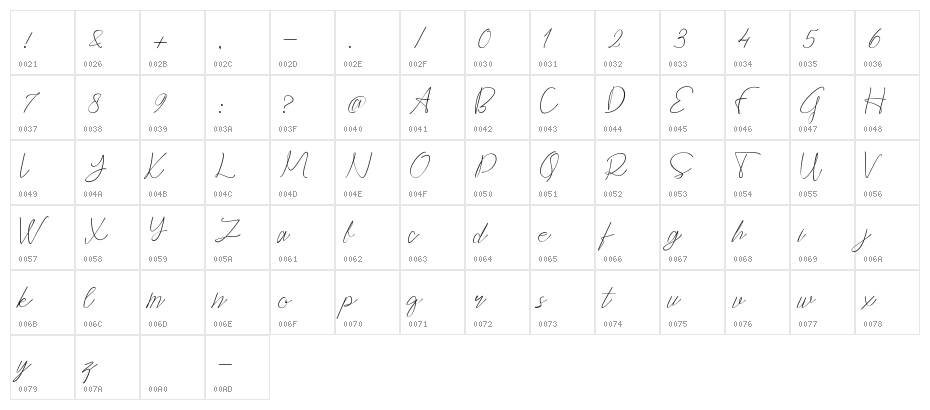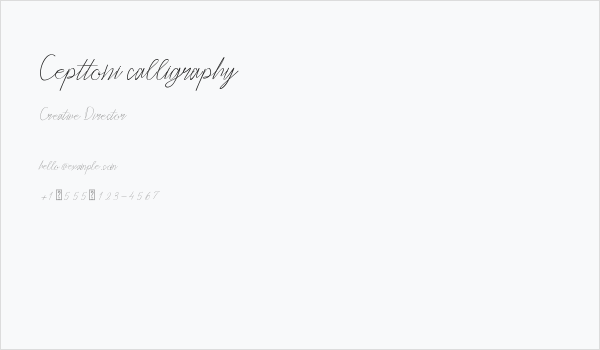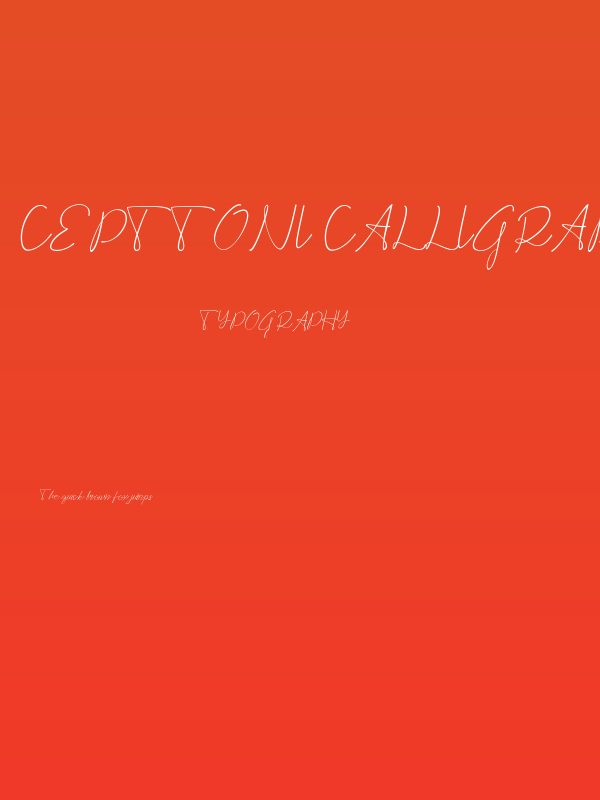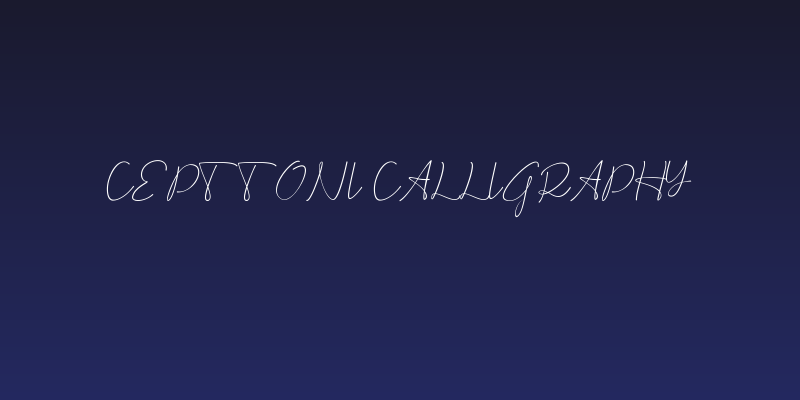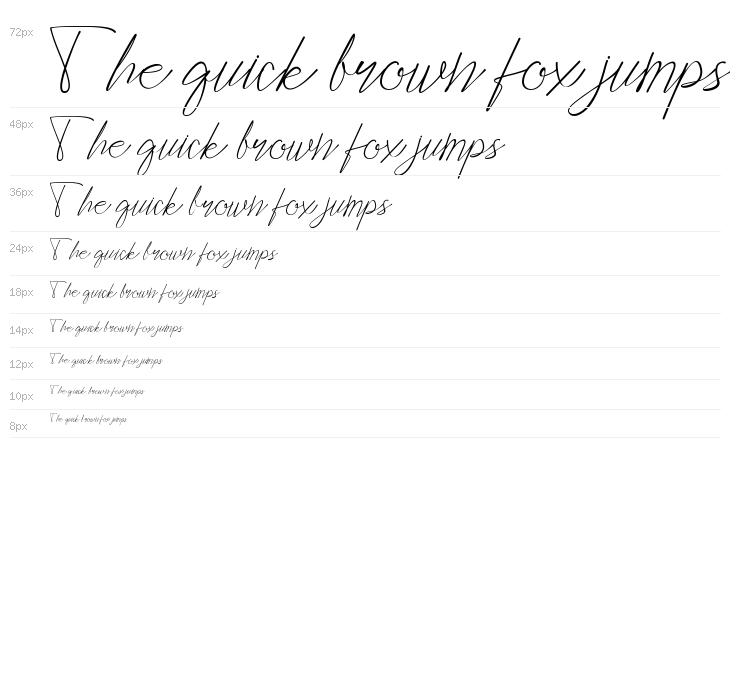
Cepttoni calligraphy Font
Cepttoni calligraphy Description
This elegant calligraphy font features flowing, interconnected strokes that mimic the fluidity of handwritten script. The uppercase letters are tall and slender, with distinctive loops and curves that add a touch of sophistication. The lowercase letters maintain a consistent style, with graceful ascenders and descenders that enhance the overall aesthetic. The numerals are clear and stylish, complementing the alphabet with their refined appearance. Special characters are thoughtfully designed, maintaining the font's cohesive and artistic look. This font exudes a sense of elegance and creativity, making it ideal for projects that require a personal and artistic touch.
| Proposed Projects | Ideal for wedding invitations, greeting cards, personal branding, and artistic projects. |